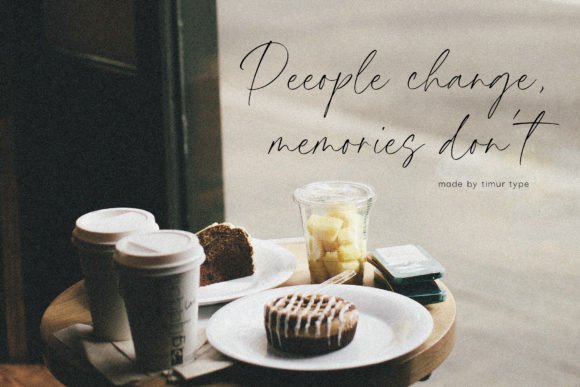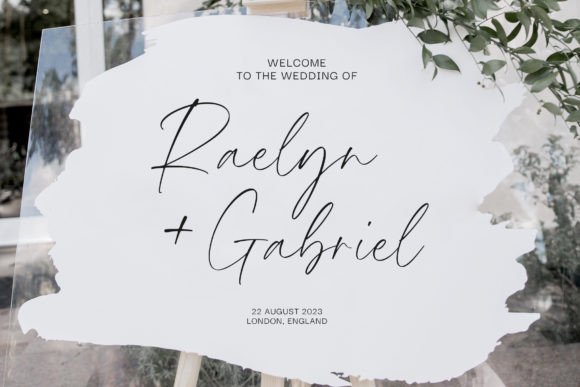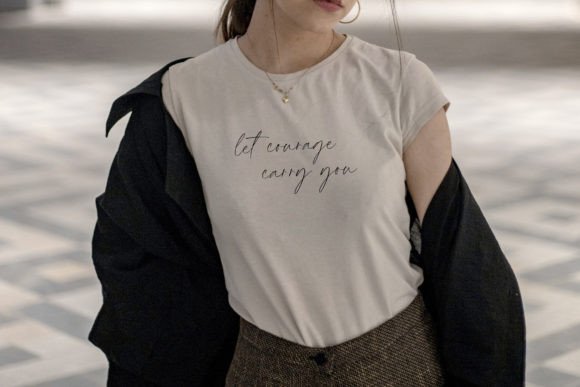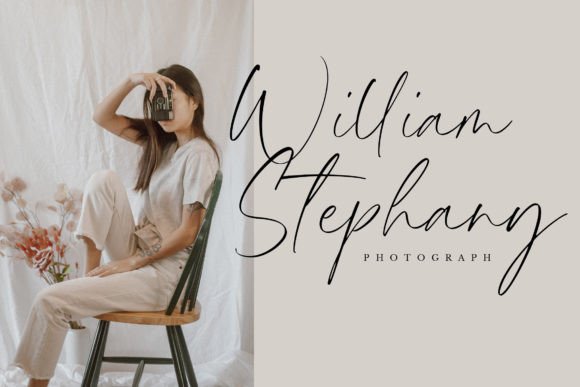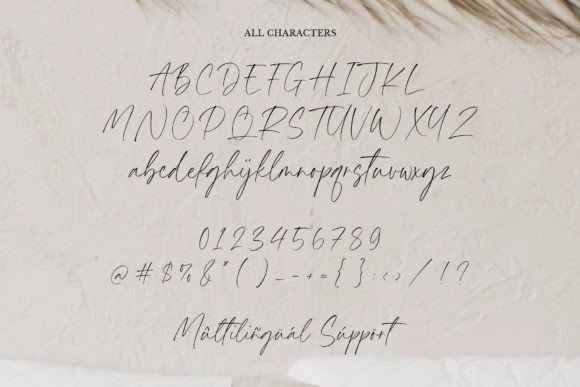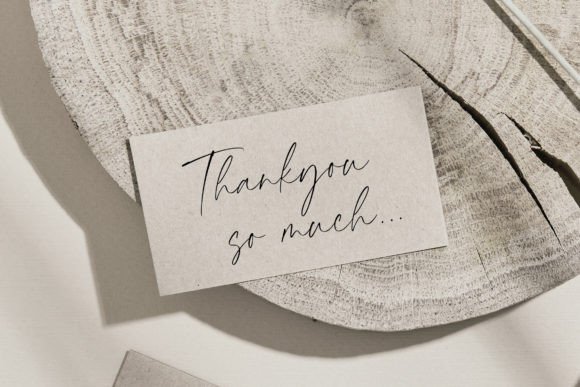
Aromatic Signature Font: Elevate Your Designs with Elegance and Sophistication
In the world of typography, a well-crafted font can make all the difference in elevating a design from ordinary to extraordinary. For designers and crafters seeking to add a touch of luxury and sophistication to their projects, Aromatic Signature Font is an exceptional choice. This modern script font is designed to exude elegance, making it perfect for a wide range of applications, from branding and packaging to editorial designs.
The Essence of Aromatic Signature Font
Aromatic Signature Font is characterized by its fluid and graceful strokes, which bring a sense of movement and fluidity to any design. The font’s modern script style is both timeless and trendy, allowing it to seamlessly integrate into various design projects while adding a unique touch of class. Whether you’re working on a luxury brand’s logo, a high-end product’s packaging, or a stylish editorial piece, Aromatic Signature Font is sure to make a lasting impression.
Key Features of Aromatic Signature Font
- Elegant and Sophisticated: Aromatic Signature Font is crafted to add an air of elegance and sophistication to any project, making it ideal for designs that require a high-end feel.
- Fluid and Graceful Strokes: The font’s fluid strokes contribute to its luxurious appearance, providing a sense of dynamism and smoothness.
- Versatile: Suitable for a variety of design applications, including branding, packaging, editorial designs, and more.
- Timeless: Despite being a modern script font, Aromatic Signature has a timeless quality that ensures it won’t go out of style anytime soon.
Applications of Aromatic Signature Font
The versatility of Aromatic Signature Font makes it an invaluable asset for designers across various industries. Here are some of the key areas where this font truly shines:
- Branding: Create memorable and sophisticated logos that stand out in the market.
- Packaging: Elevate product packaging with a luxurious look that appeals to high-end consumers.
- Editorial Designs: Add a touch of elegance to magazines, newspapers, and digital publications.
- Advertising: Make your advertisements more compelling with a font that captures attention and conveys luxury.
Why Choose Aromatic Signature Font?
In a sea of fonts, Aromatic Signature stands out for its unique blend of modernity and classic elegance. Here are a few reasons why designers and crafters should consider adding it to their collection:
- Unique Appeal: Its distinctive style ensures that your designs have a unique appeal that sets them apart.
- High Versatility: The font’s adaptability makes it suitable for a wide range of projects and design requirements.
- Easy to Read: Despite its elegant and cursive nature, Aromatic Signature maintains readability, making it practical for both headings and body text.
Aromatic Signature Font is more than just a typeface; it’s a design statement that speaks of luxury, elegance, and sophistication. Its fluid strokes and modern script style make it an excellent choice for designers looking to add a touch of class to their projects. Whether you’re working on a branding campaign, designing product packaging, or creating editorial content, Aromatic Signature Font is a timeless addition to any designer’s collection. Elevate your designs with the sophistication and elegance that Aromatic Signature has to offer.